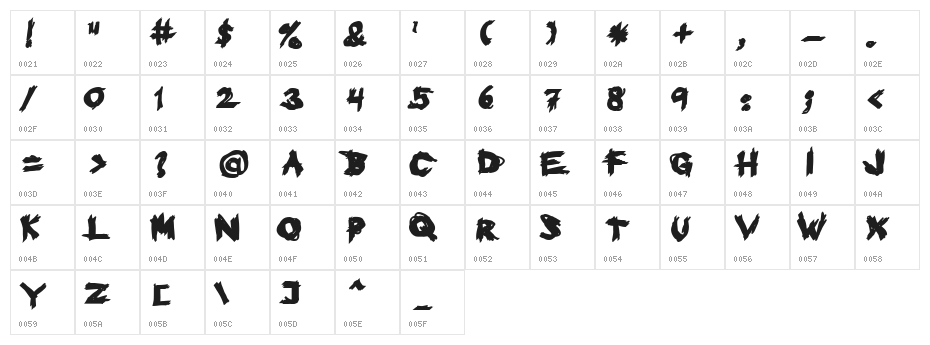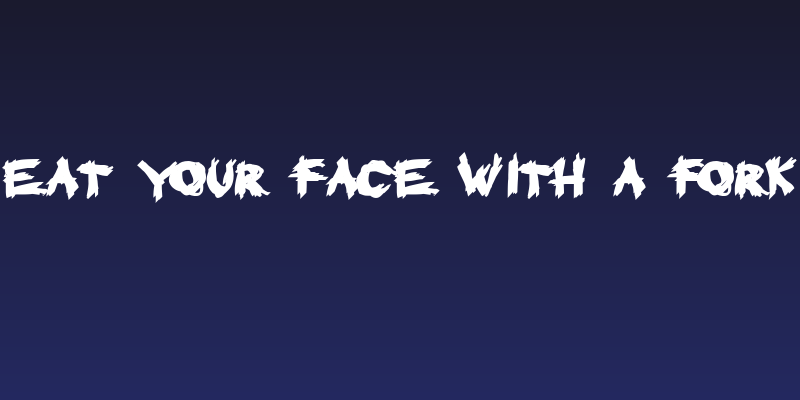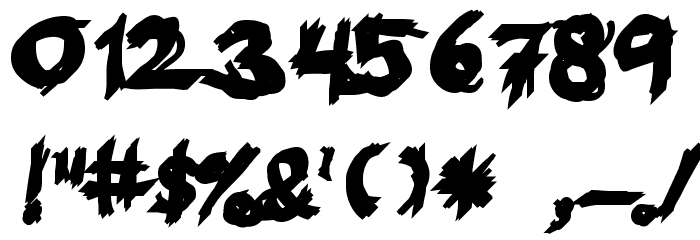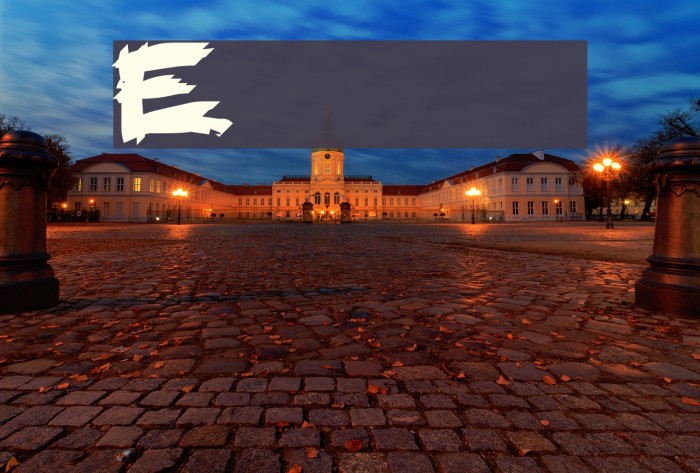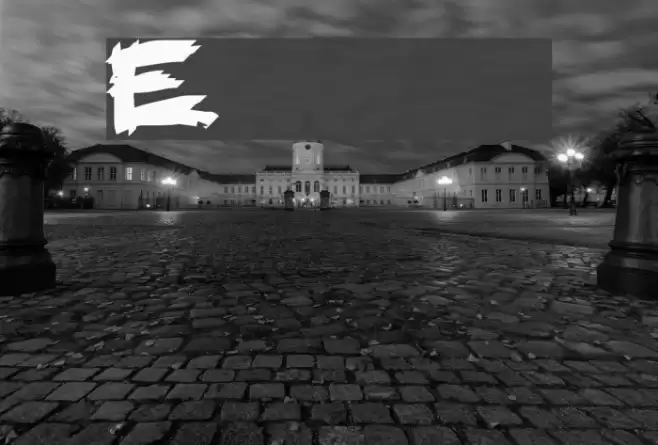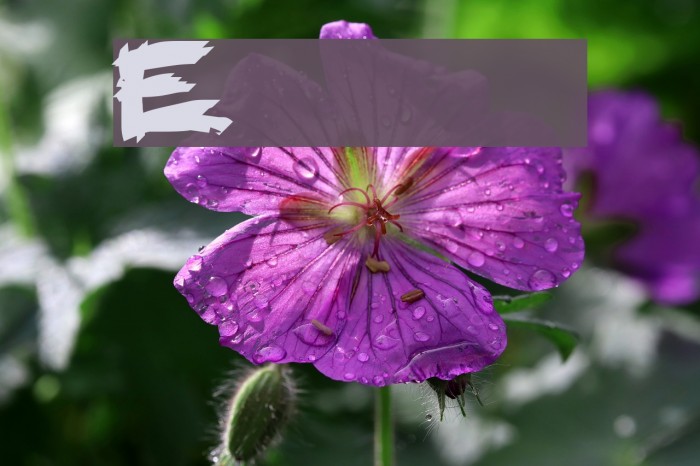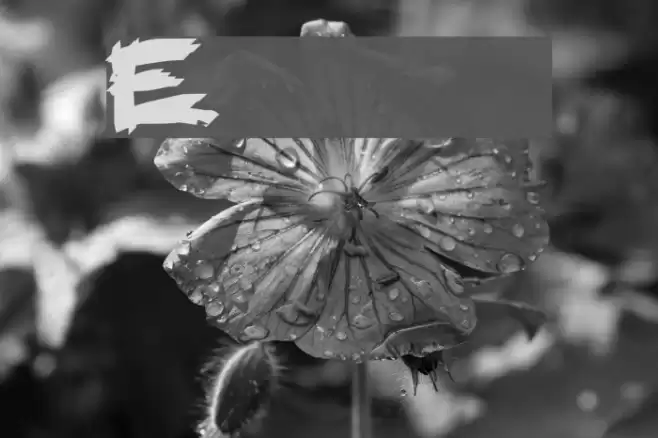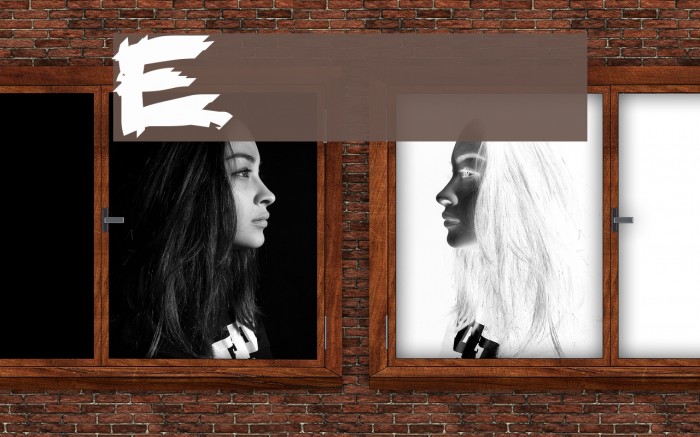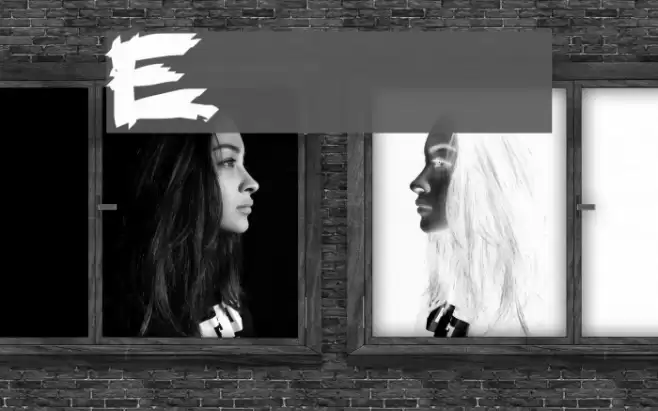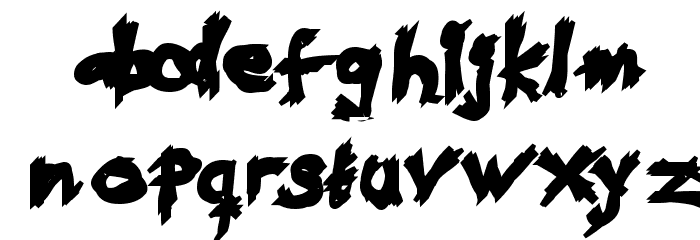
Eat your face with a fork Font
Eat your face with a fork Description
This font exudes a chaotic and aggressive style, characterized by jagged, irregular edges and a bold, impactful presence. The letters appear as if they have been torn or scratched, giving a raw and edgy feel. The uppercase and lowercase letters maintain this distressed appearance, creating a consistent theme throughout. Numbers and special characters follow the same rugged design, ensuring uniformity. The font's unique style makes it stand out, perfect for projects that require a dramatic and unconventional look.
| Overall Style | Edgy, Chaotic, Distressed |
| Use Case | Headlines, Posters, Branding |
| Proposed Projects | Ideal for horror-themed posters, edgy album covers, or rebellious branding materials. |